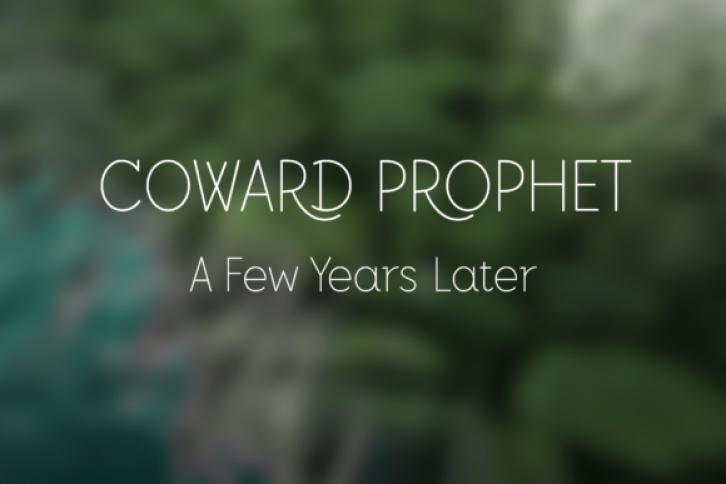
Coward Prophet is a minimal and THIN sans serif font. It can easily be matched to an incredibly large set of projects, so add it to your creative ideas and notice how it makes them stand out!